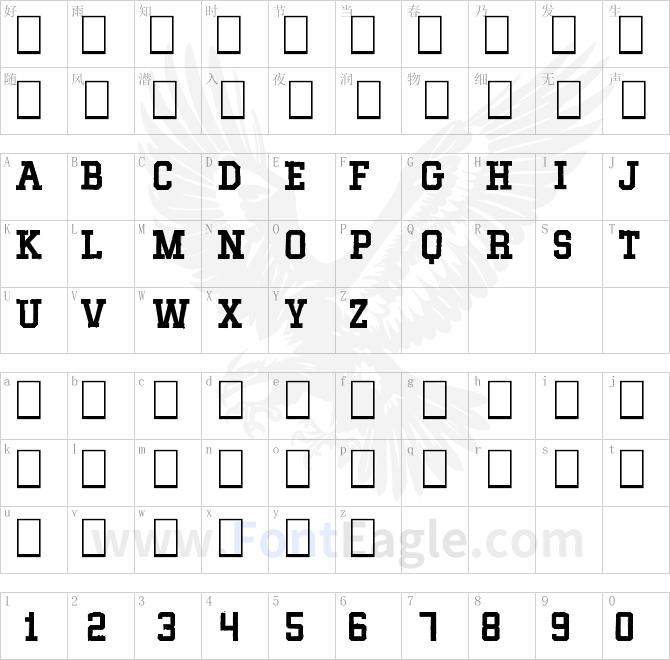
MIXIVA-DUSTY-demo is a great font, widely used in graphic design, single-page menu design, poster design and other fields, and is deeply loved by designers.MIXIVA-DUSTY-demo download.